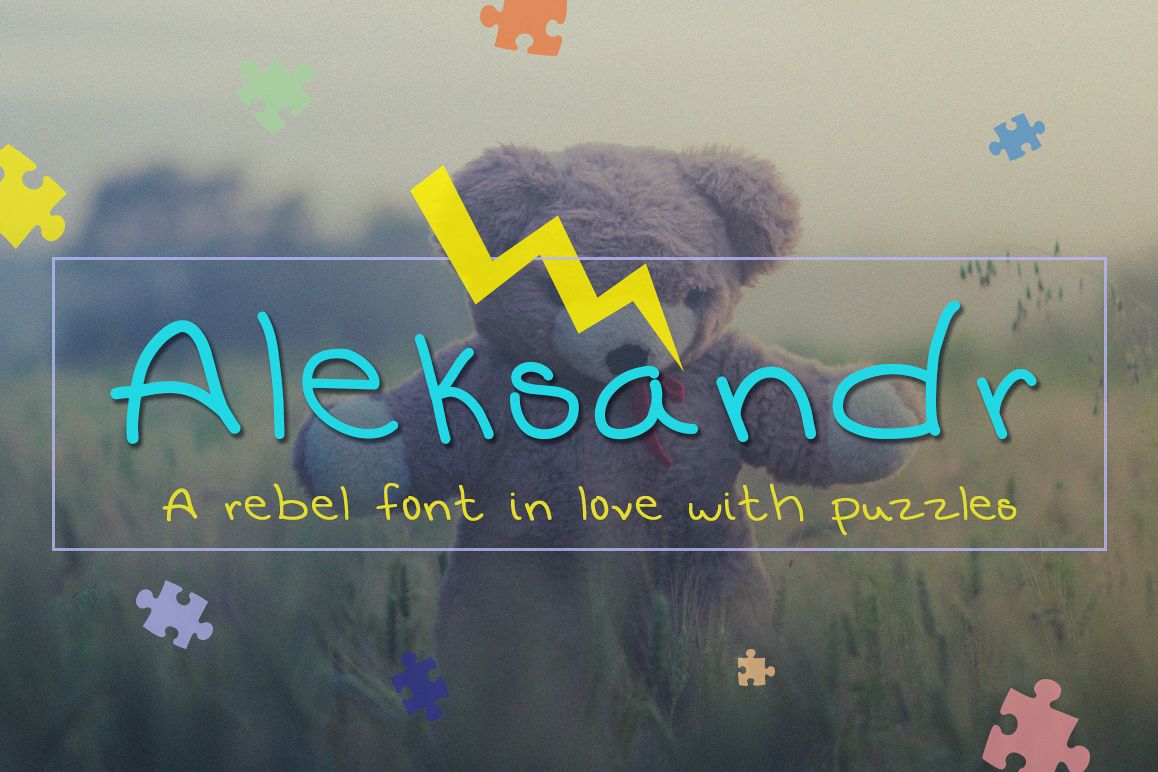
Aleksandr – Clean and Rebel Font
Aleksandr is a font created with the handwriting of my older son in mind. It is clean and rebel font perfect for both print and digital works! Can be successfully used for craft designs because it comes with lines that are easy to cut.
The font has all uppercase and lowercase letters, numbers 0-9 and extended punctuation!